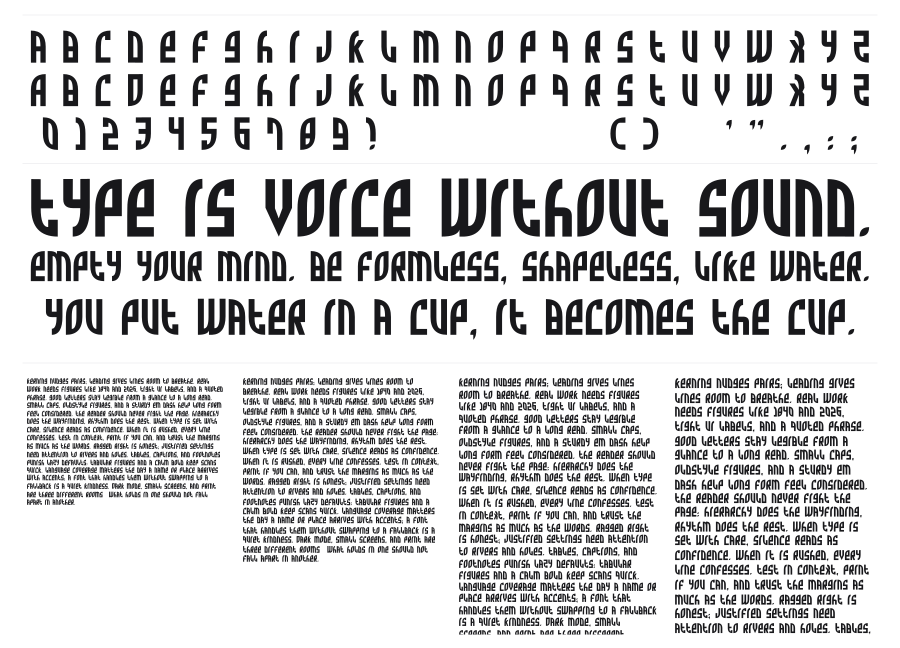
Zone Rider
Zone Rider is a heavy condensed geometric sans with sharp flat-cut terminals and angular stylized character forms that feel pulled straight from a 1970s sci-fi paperback cover. The bold compressed proportions and mechanical construction give it a sense of speed and forward momentum. Strong for gaming titles, music branding, poster headlines, and anywhere that needs retro futurist attitude.